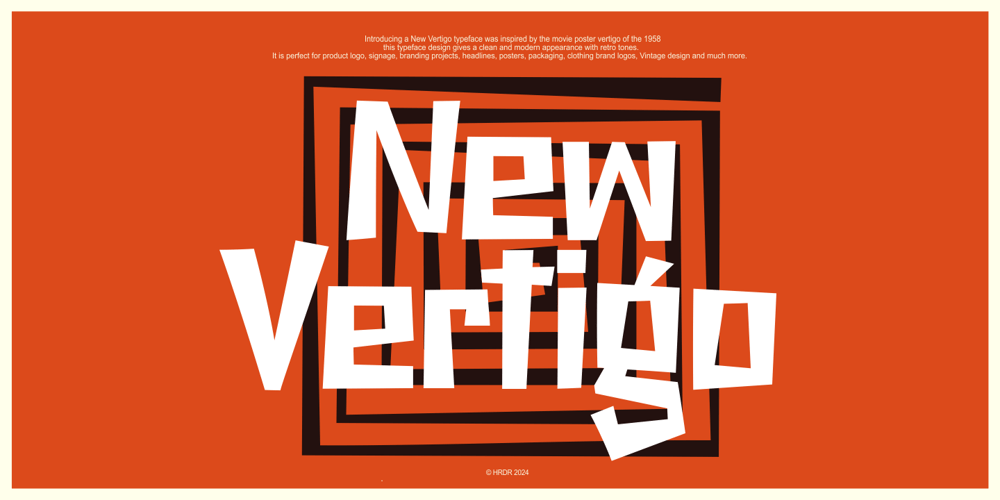
New Vertigo Font Family was designed by Dede Mulyadi and published by HRDR. New Vertigo contains 1 styles and family package options. Introducing a New Vertigo Typeface was inspired by the movie poster Vertigo of the 1958, this typeface appearance look a classic tones and simple.Using this font will be very fun 🙂